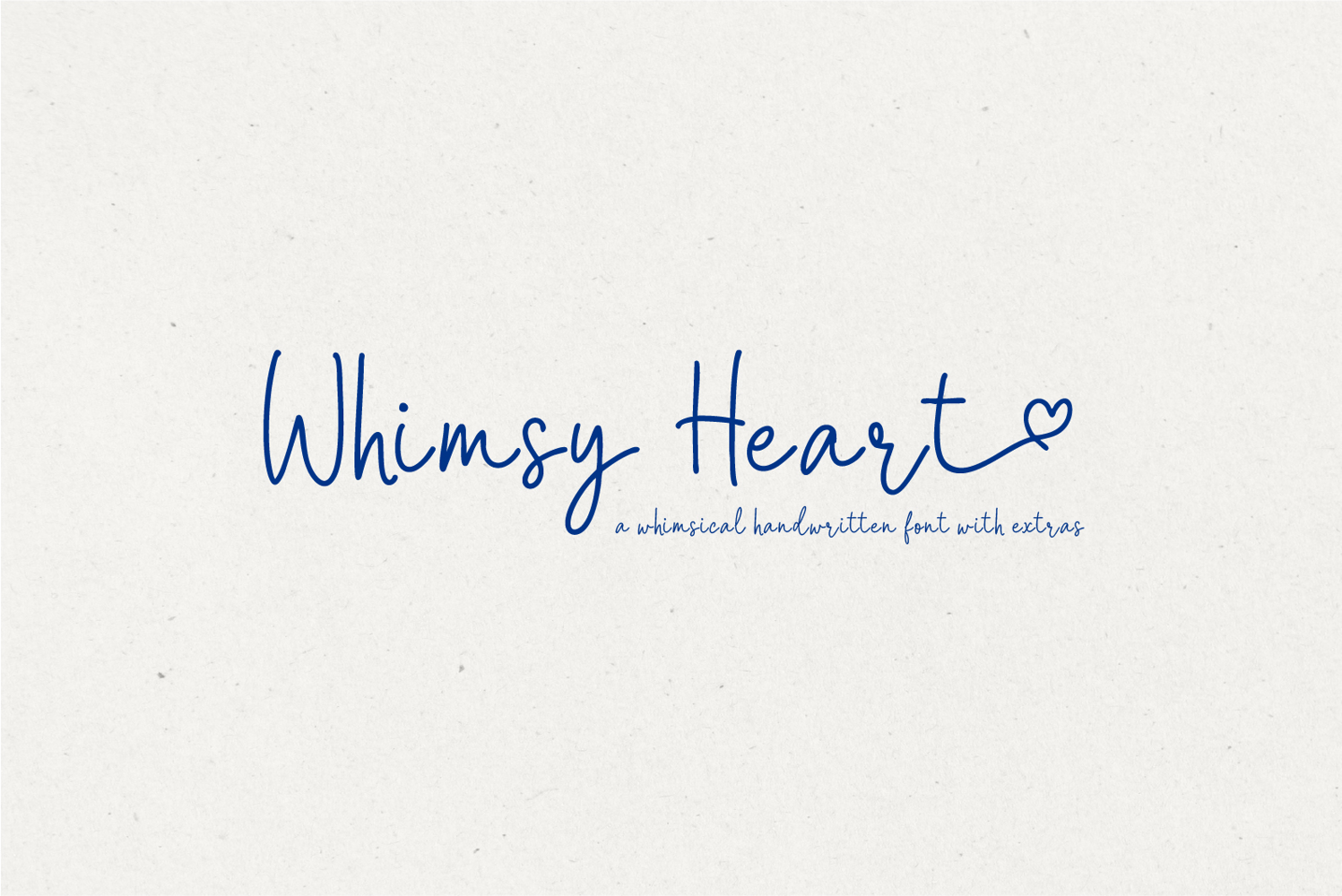
Whimsy Heart A Charming Handwritten Font
Whimsy Heart – A Charming Handwritten Font
Bring warmth, personality, and handmade charm to your creative projects with Whimsy Heart, a whimsical handwritten font designed for makers, designers, and creatives who love an authentic handwritten feel.
Featuring playful letterforms, delicate imperfections, and a soft feminine aesthetic, this font is perfect for creating memorable branding, social media graphics, invitations, packaging, stickers, and more.
Font Features:
• Uppercase A–Z
• Lowercase a–z
• Numbers 0–9
• Punctuation & Symbols
• Clean Handwritten Style
• Easy to Read
Why You'll Love It
Whimsy Heart combines a playful handwritten personality with clean readability, making it versatile enough for both professional branding and creative projects. Whether you're designing a boutique logo, or crafting beautiful invitations, this font adds a touch of warmth and authenticity.